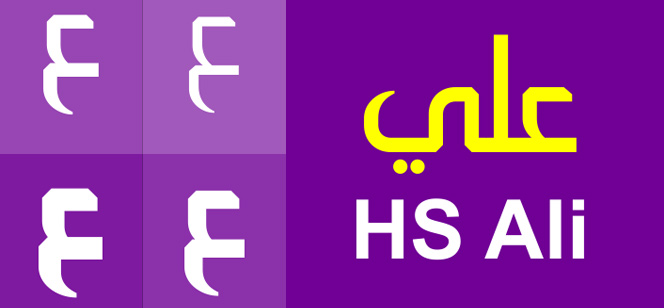
HS Ali Arabic typeface
HS Ali is a contemporary Arabic typeface with a very special dedication. With it its designer Hasan Abu Abash pays tribute to the loving memory of his brother Ali Abu Abash who tragically lost his life in Gaza in the summer of 2014. As can be expected Hasan invested in this typeface all of his love, emotions and experience to make sure he gets a result worthy of his brother’s legacy.
HS Ali is a display font best suited for titles and bigger text sizes. It has all the distinctive features of the Kufi style, most notably the quite characteristic sharp and curvy segments as well as the accurate mark positions below and above the letters. Special care was taken while designing the letterforms in order to achieve very high readability. HS Ali is supplied in four weights – Light, Regular, Medium and Bold and offers language support for Arabic, Kurdish, Urdu and Persian. Overall, the typeface is designed in a manner that makes sure it meets the requirements of a vast range of users with different tastes and project ideas.
Designer: Hasan Abu Afash
Publisher: Hiba Studio